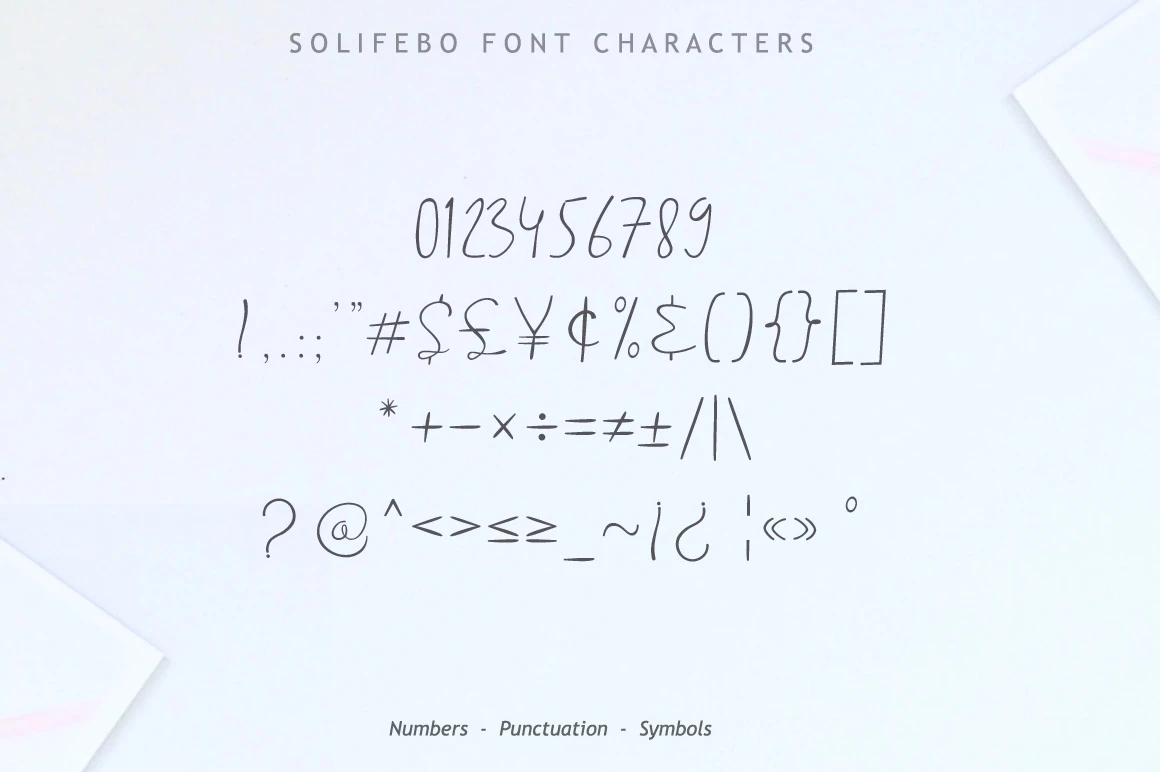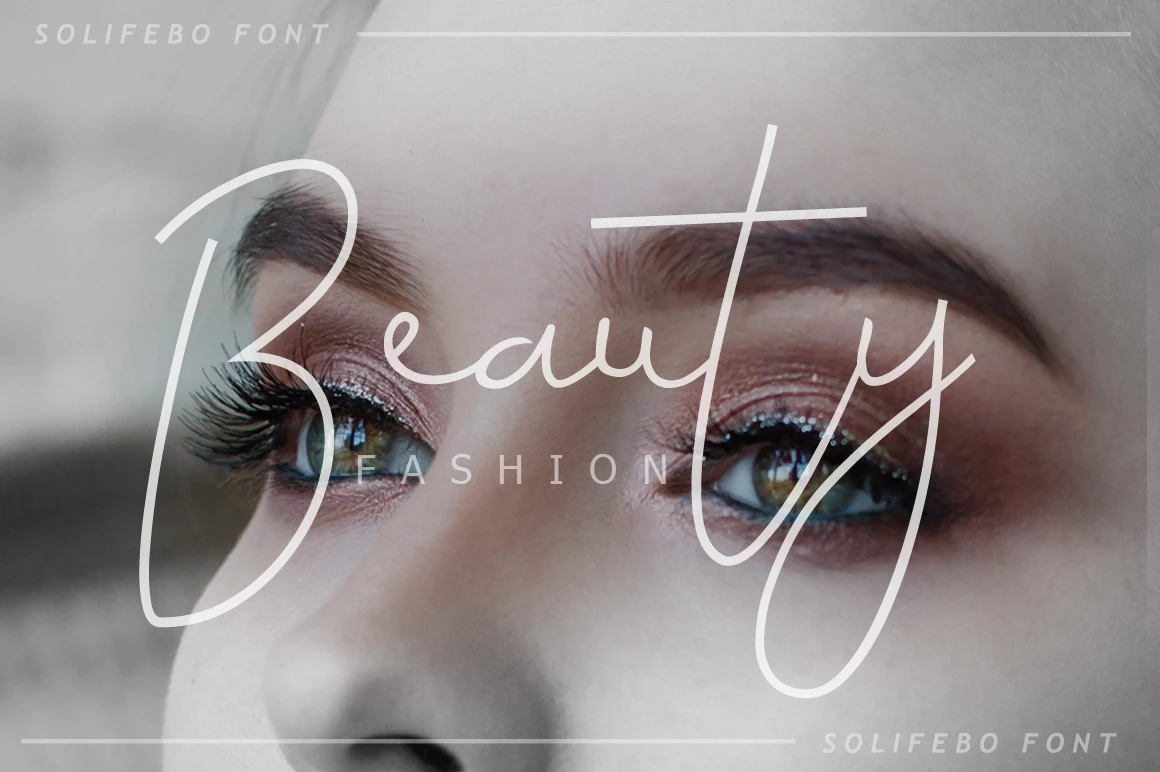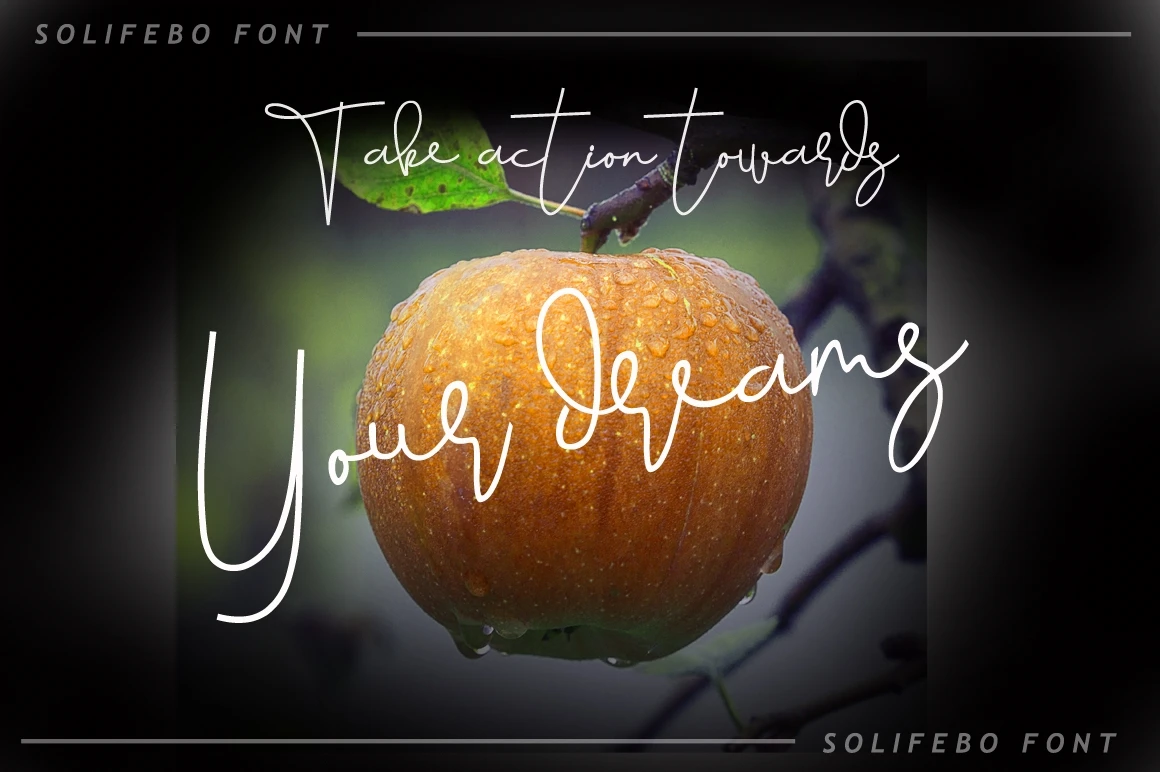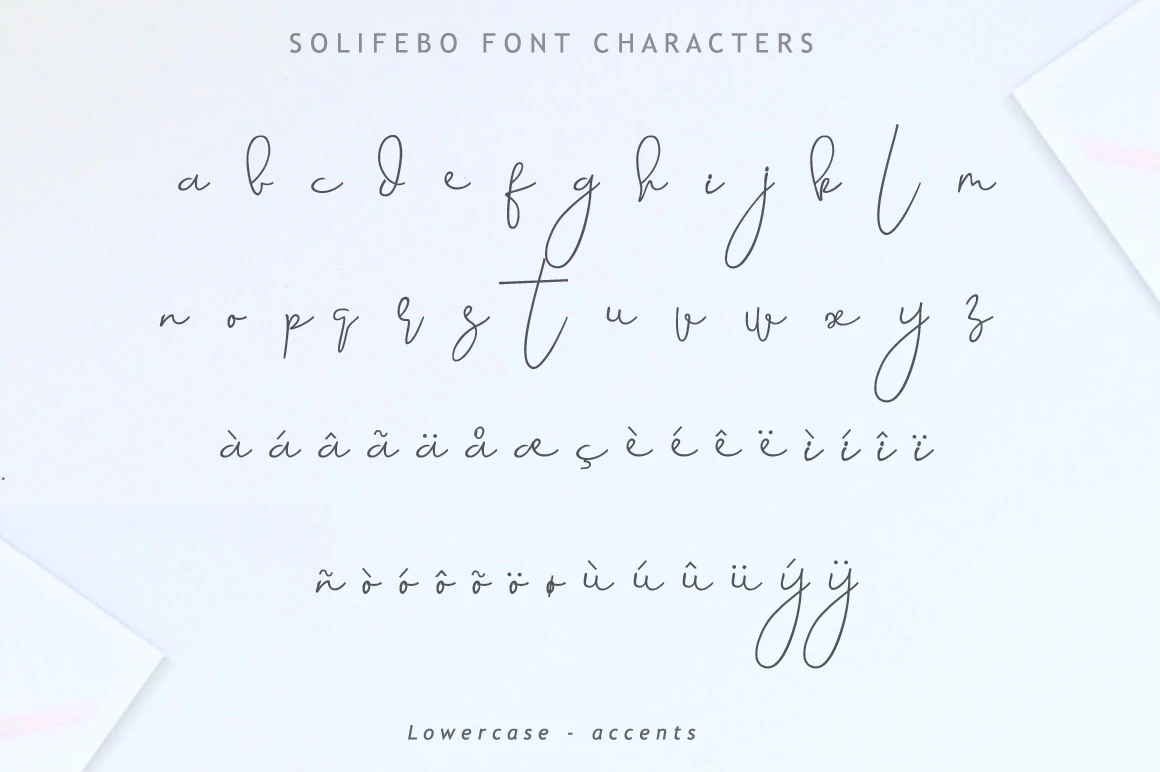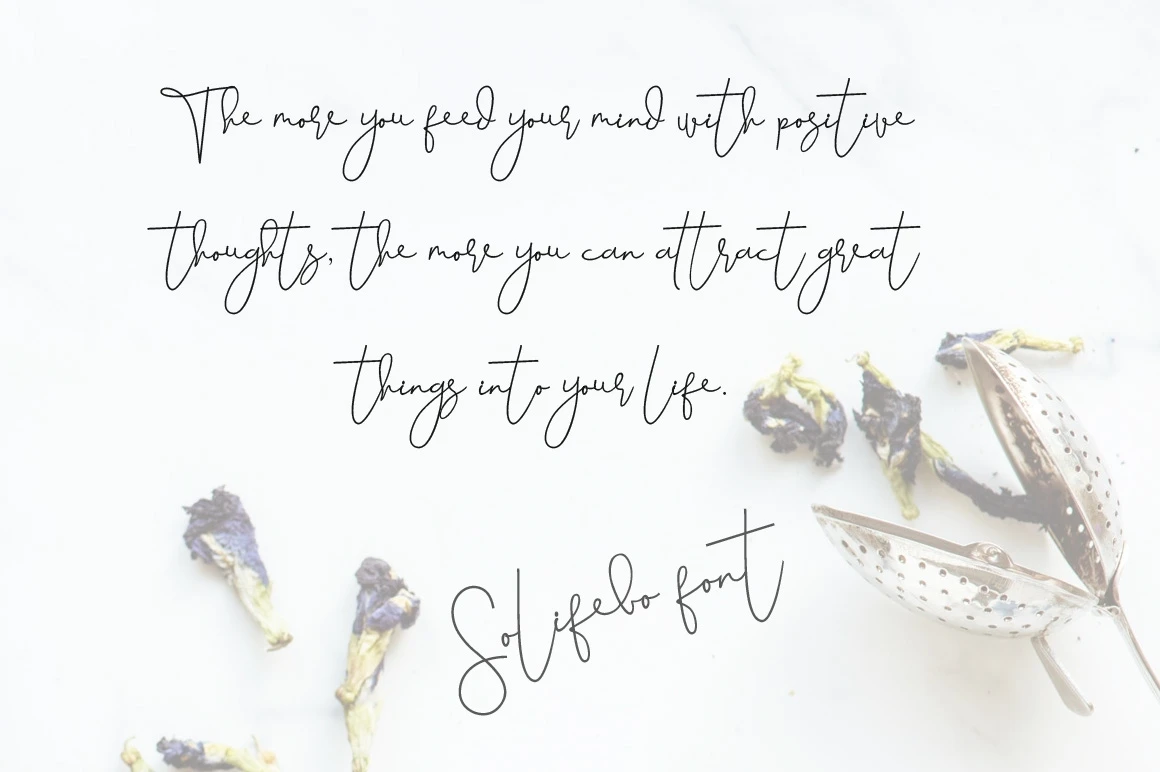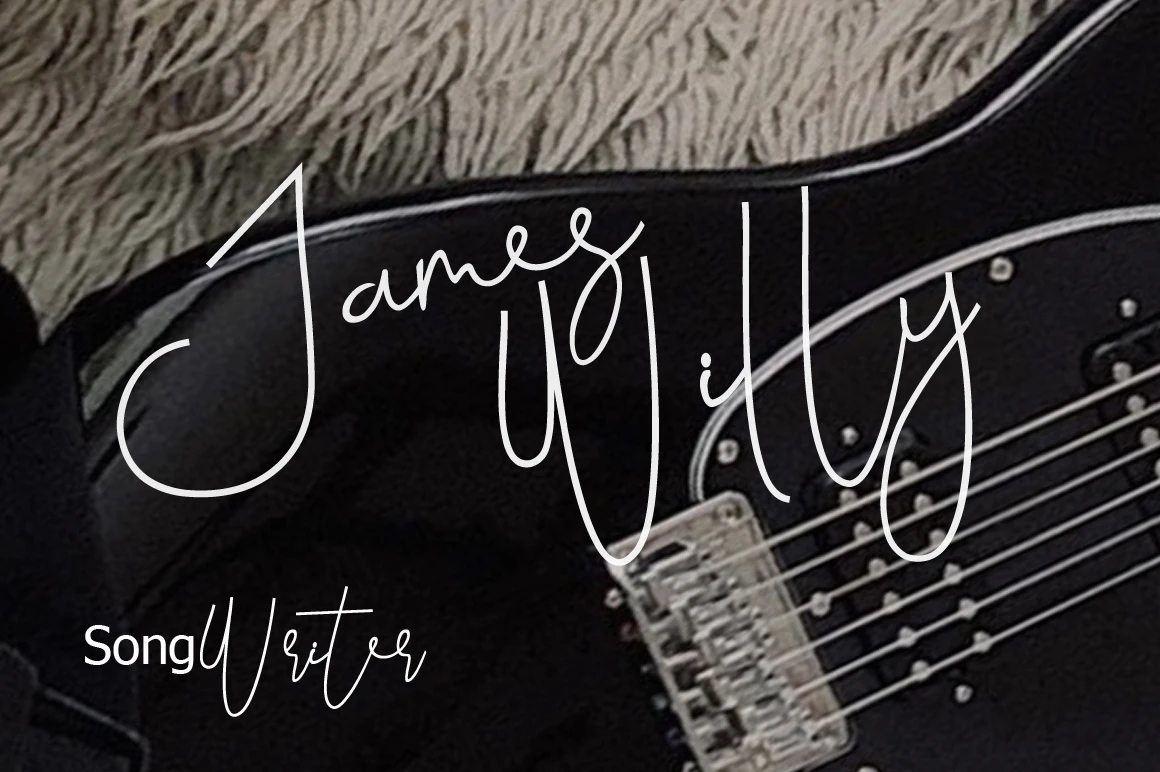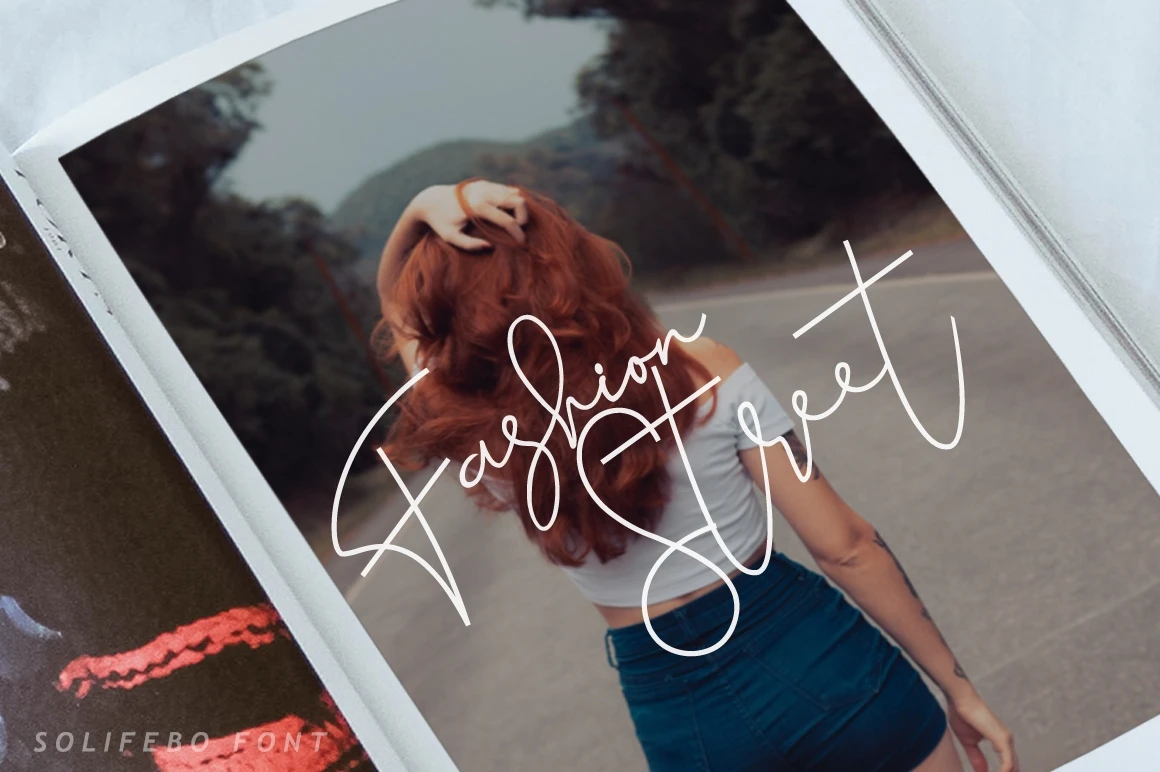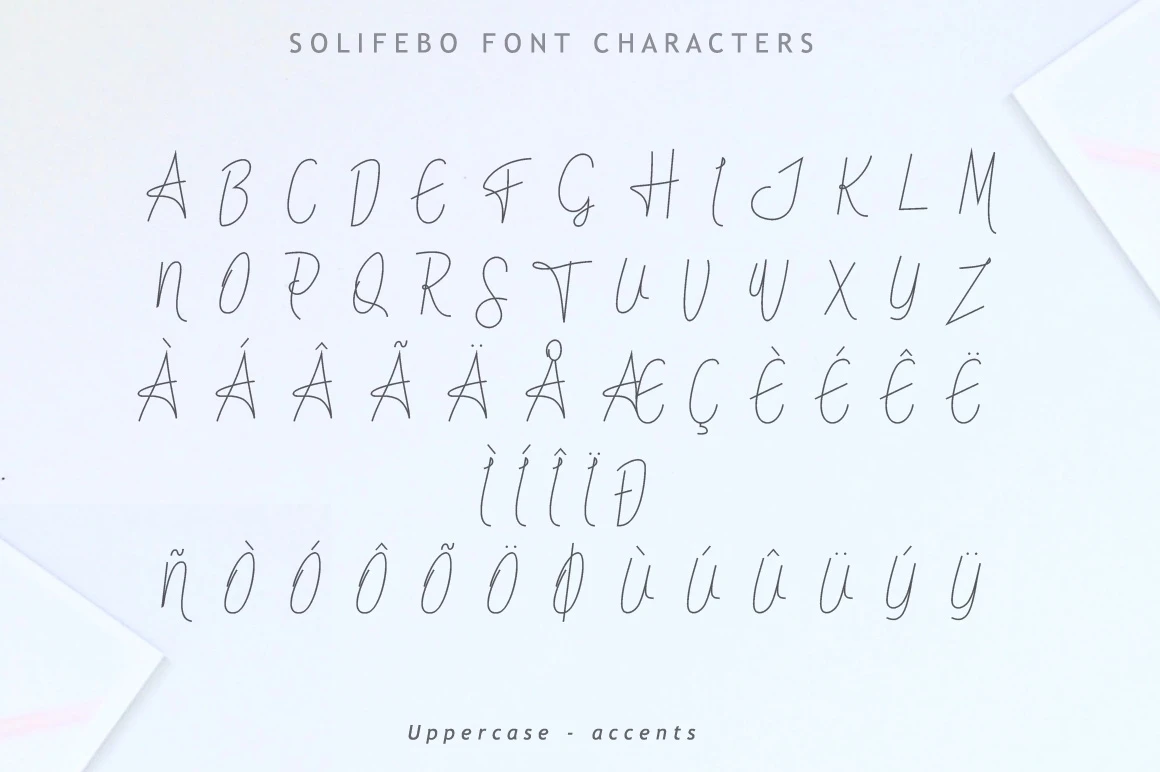
Solifebo is a signature font with beautiful curves.Its curves make it dynamic typeface.
Solifebo was designed with natural feel of handwritten style and beautiful ligatures, to improve your design projects.
Perfect for signatures, quotes, wedding invites, logos, branding, product packaging, headers, and more.
- Uppercase A-Z
- Lowercase a-z
- Numbers 0-9
- Accents
- Punctuation
- Custom Ligatures
- Multilingual support